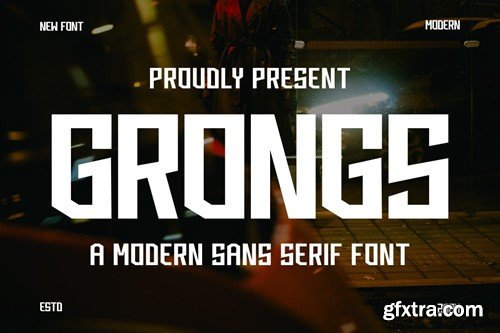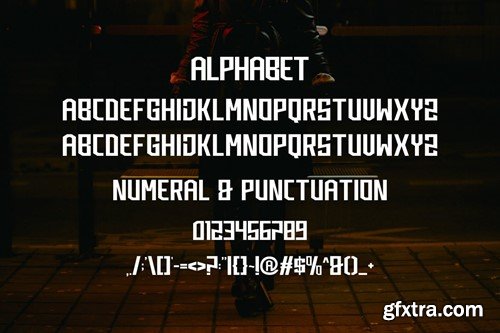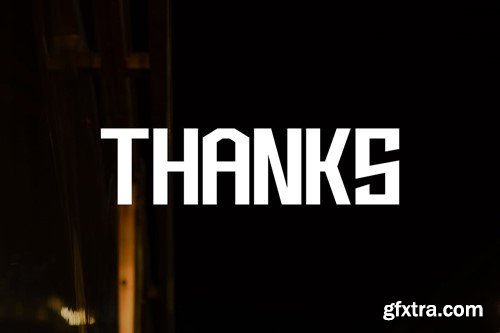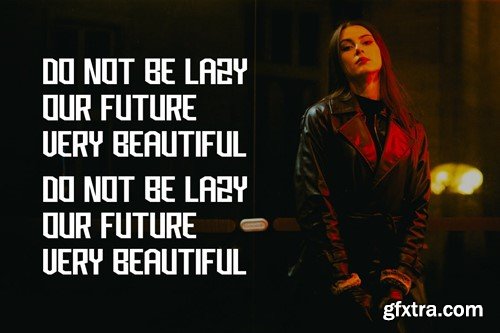
Grongs Font
Introducing Grongs Modern Sans Serif Font. Grongs is a modern and simple font, best used as a display for headings, logos, branding, magazines, product packaging and invitations. Grongs come with clean lines and smooth curves give any project an extra touch of class. What you get: Thank you.